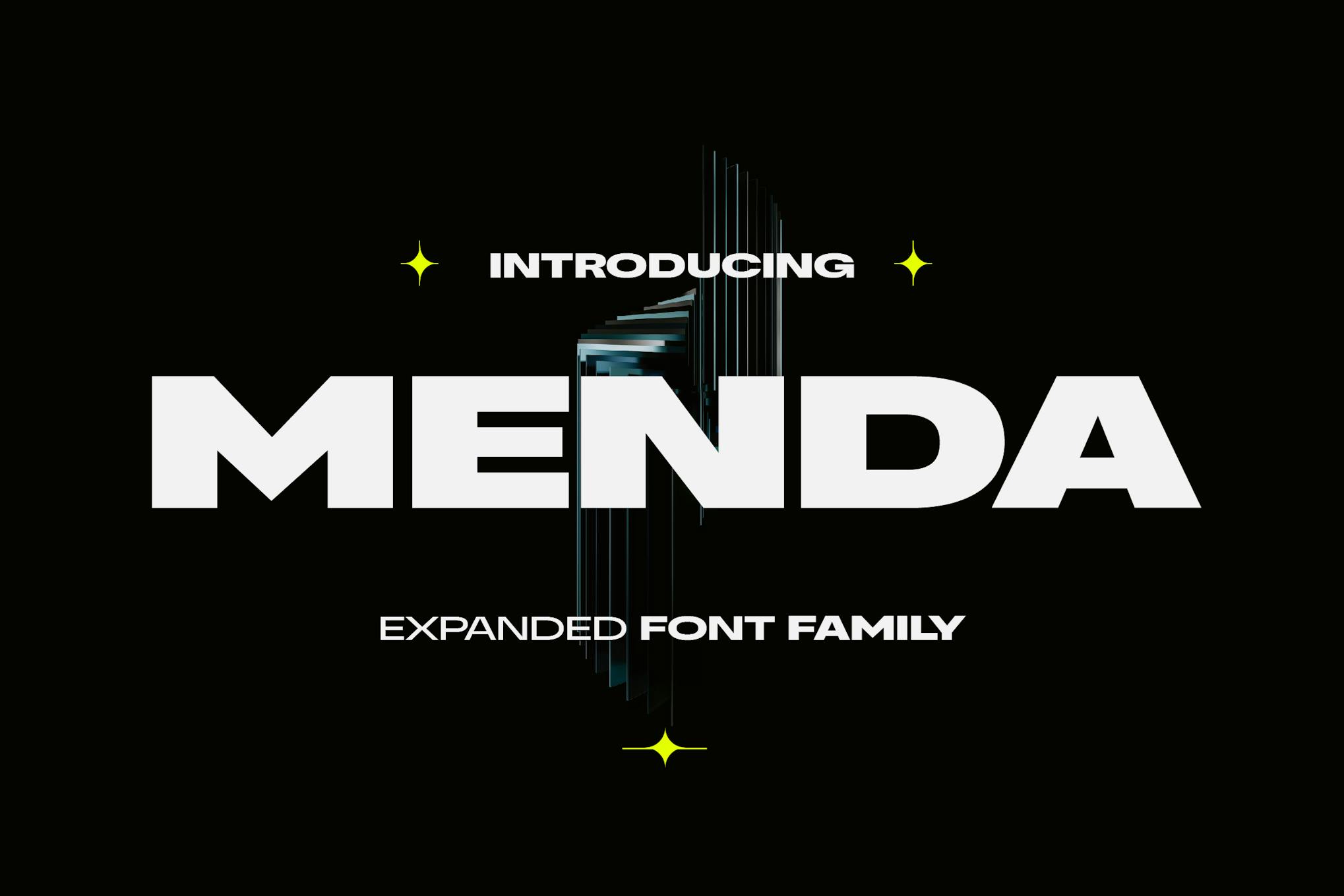
Menda Expanded Font Family
The Menda Expanded Font Family is perfect for architectural signage systems, modern corporate branding, sleek industrial design projects, contemporary magazine layouts, minimalist poster designs, cutting-edge web typography, professional presentation templates, clean packaging design, sophisticated editorial work, and progressive advertising campaigns.
What makes the Menda Expanded Font Family so exciting is its perfect balance of expanded proportions with refined geometric precision that creates exceptional readability and striking visual presence. This innovative typeface features wide character spacing, carefully engineered letterforms, and contemporary design elements that deliver outstanding performance in both display and text applications. The font's expanded structure and modern aesthetic make it an ideal choice for projects requiring clarity, professionalism, and distinctive visual character that stands out in today's competitive marketplace.
The Menda Expanded Font Family includes comprehensive weight options, featuring Thin, Light, Regular, Medium, Semi-Bold, Bold, Extra-Bold, and Black variations, plus matching italic styles. Each weight maintains the signature expanded proportions while offering different levels of visual impact and typographic flexibility, providing designers with complete control over hierarchy and emphasis in complex layout systems.
This exceptional Menda Expanded Font Family Free Download represents the perfect typography solution for designers seeking a versatile, expanded typeface that combines contemporary style with exceptional functionality. Whether you're developing corporate communications, creating editorial designs, or building brand identities, this comprehensive font family delivers consistent quality and professional results across all applications.
The sophisticated engineering of Menda Expanded Font Family showcases advanced typographic design, with each character meticulously crafted for optimal spacing, legibility, and visual harmony. The font's extensive character set includes international language support, advanced OpenType features, mathematical symbols, and comprehensive punctuation, ensuring seamless integration into professional workflows and global projects.
Expertly optimized for both digital and print environments, this outstanding font family maintains perfect clarity and visual consistency across all media formats and sizes. From large-scale environmental graphics to detailed body text, Menda Expanded Font Family performs flawlessly while preserving its distinctive expanded character and contemporary sophistication.